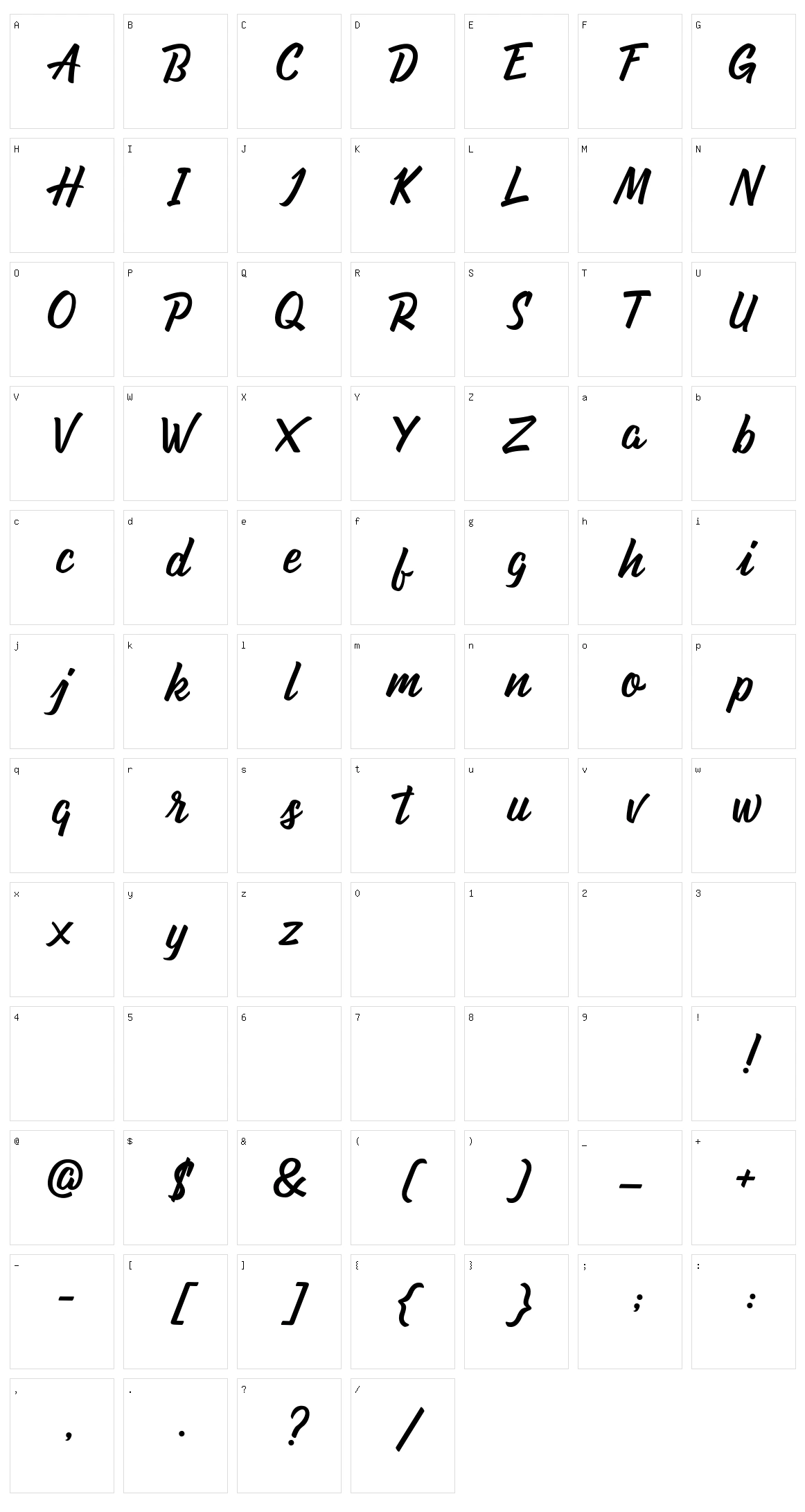
The free font Ondfuturs is carefully designed by Maculinc, showcasing a thoughtful balance of creativity and usability and falls under the Old-School font style. When you download the ZIP file, it contains only 69.33 KB of font files, making it lightweight and quick to download. Please review the license details below to understand permitted usage and distribution rights. If license information is not available, we recommend using this font for personal projects only or contacting the author directly for commercial usage permissions.